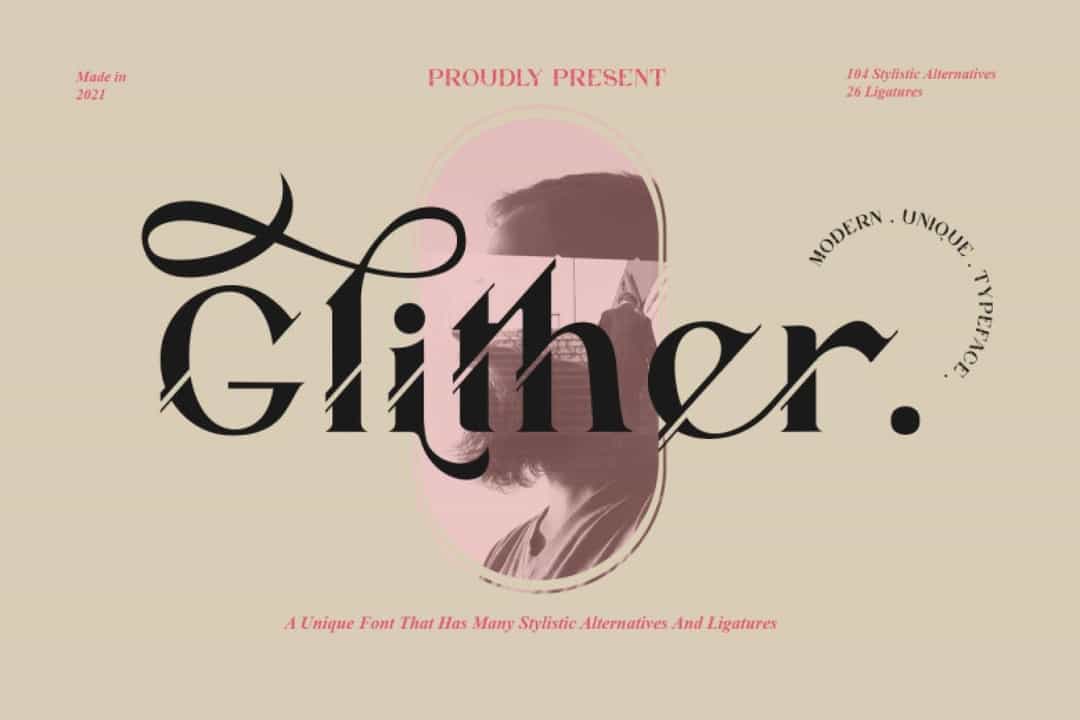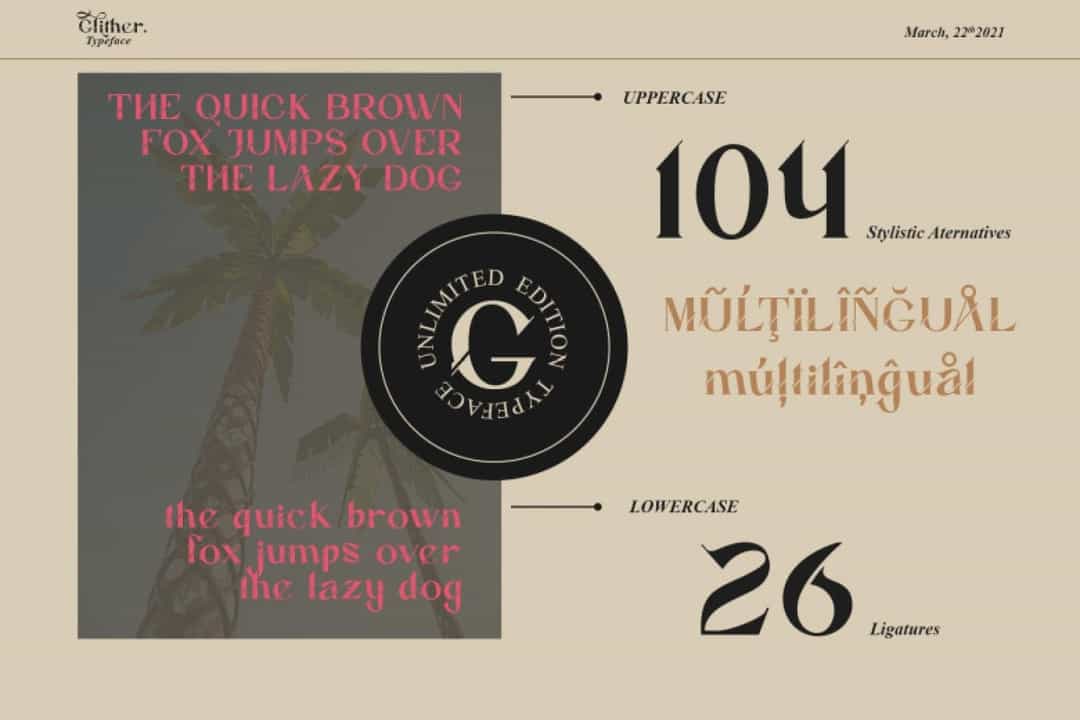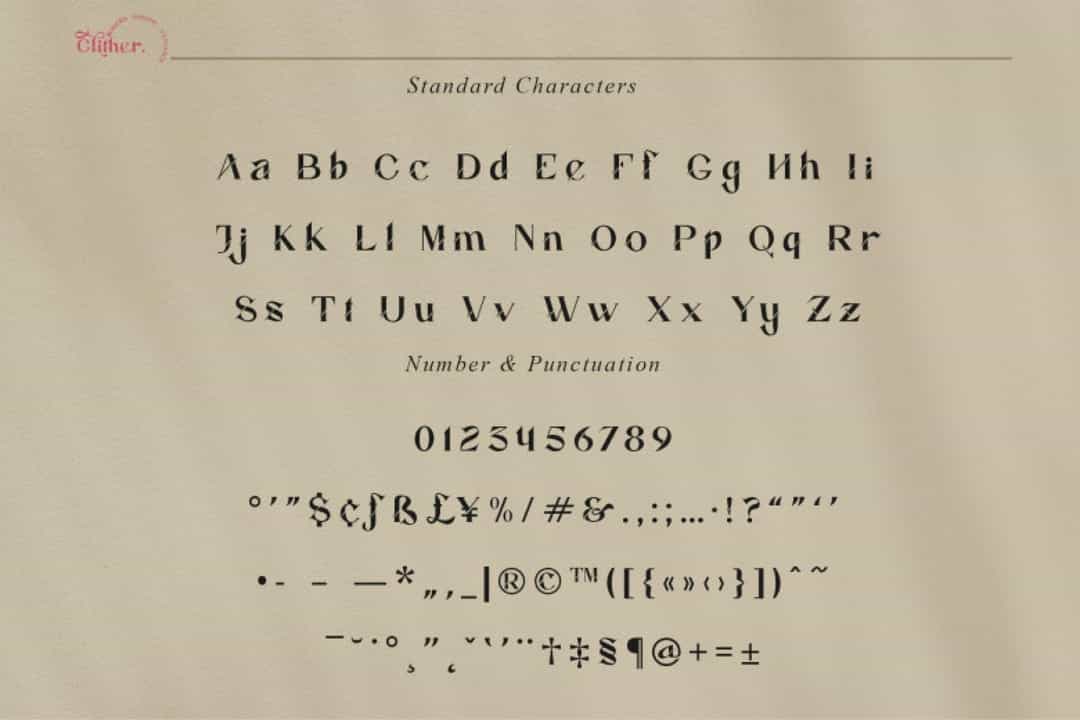
Glither Serif Font with Swash Alternative was inspired by wedding typeface usage and has an eye-catching and fashionable appearance, perfect for designs with techno themes such as quotations or quotes.